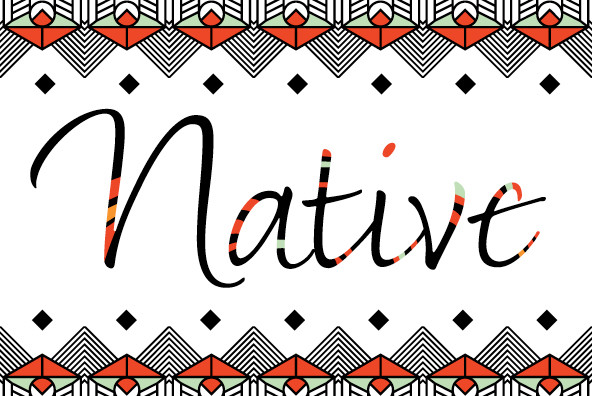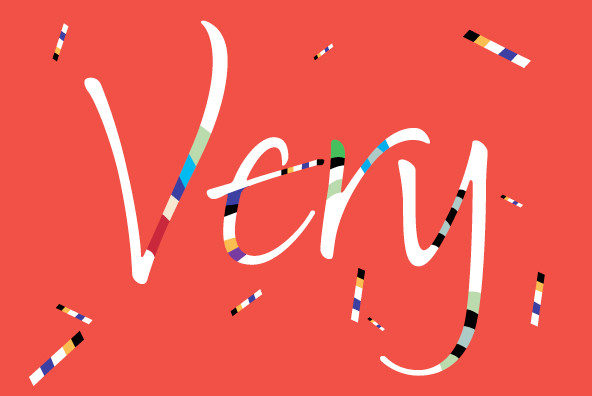
Tiva gives the impression of handwriting with the refinement of hand lettering. To achieve this effect, I kept in some of the quirks and the naturally occurring variations in writing such as letters that drop slightly below the baseline and some above. I added in several automatic letter combinations, with particular attention to double letter pairs (such as ‘oo’ or ‘ee’), to further accentuate the organic effect of handwriting. 60 alternate letters are included in this typeface, allowing the designer even more creative possibilities.